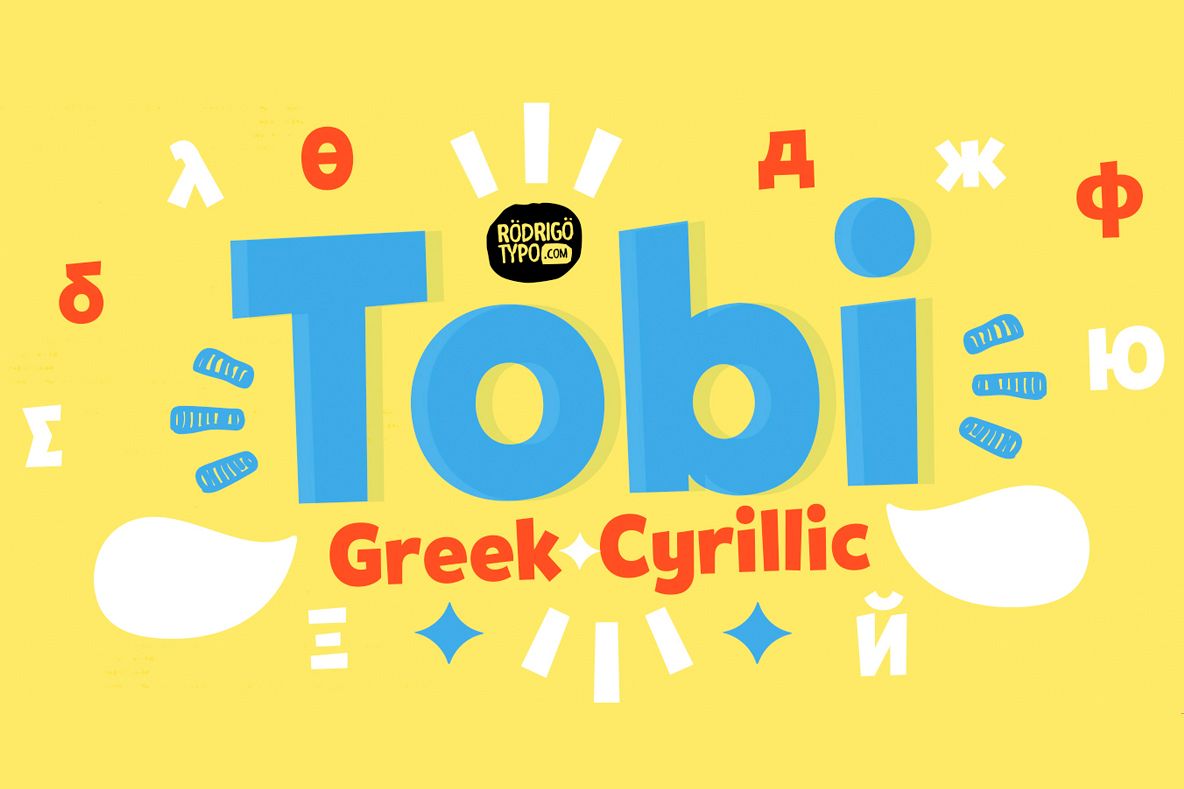
Tobi Greek Cyrillic
Tobi Greek Cyrillic is a typography based on Tobi (2015), now much improved with alternative ligatures and better than containing the Greek in capital letters and also in Cyrillic. Tobi Greek Cyrillic is a very cheerful typography, especially fun for children’s titles, juvenile children’s clothing comics, this typography was designed with a lot of love.